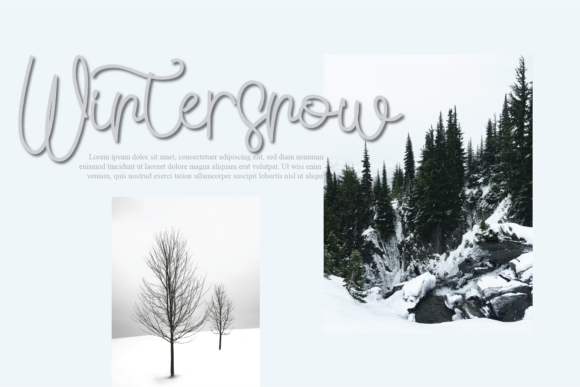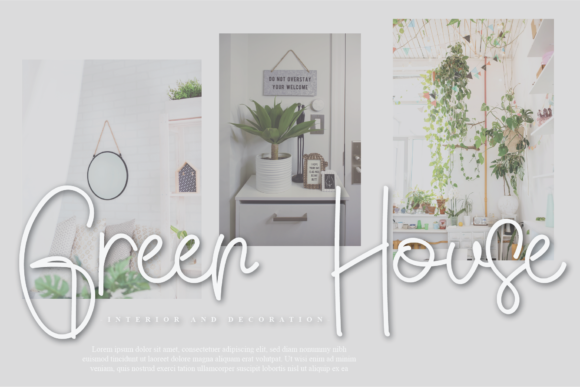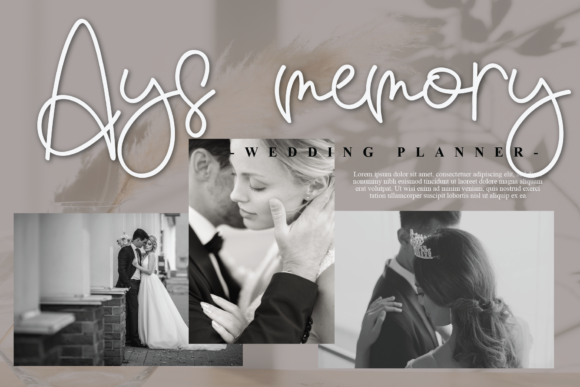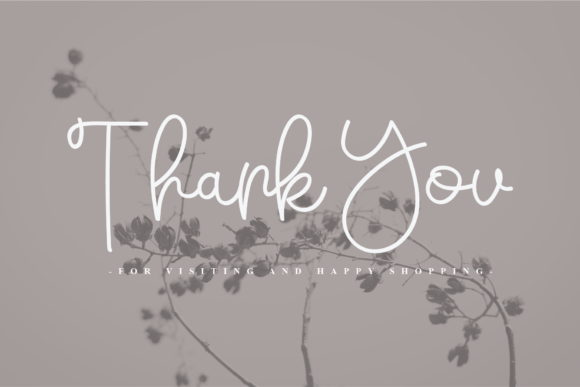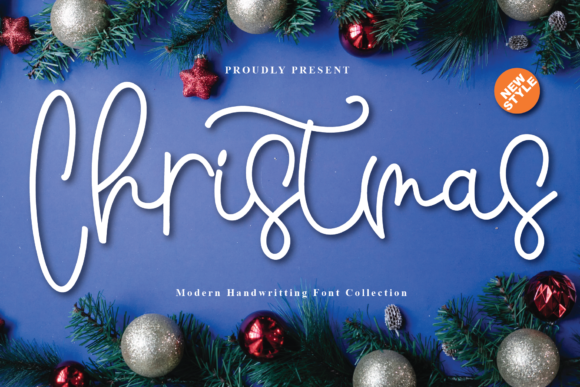
Christmas Font: A Lovely and Delicate Script Font for Elegant Designs
Are you looking for a beautiful and refreshing font to add a touch of elegance to your designs this holiday season? Look no further than Christmas Font, a lovely and delicate script font that exudes sophistication and class. In this article, we’ll explore the features and benefits of Christmas Font, and how it can elevate your designs to the next level.
What is Christmas Font?
Christmas Font is a carefully crafted script font, designed specifically for those who need a beautiful and refreshing look to their designs. With its delicate and elegant strokes, this font is perfect for creating stunning holiday-themed designs, from Christmas cards and invitations to festive posters and social media graphics.
Key Features of Christmas Font
So, what makes Christmas Font so special? Here are some of its key features:
• Elegant and Delicate Strokes: Christmas Font features beautiful, flowing strokes that give it a sophisticated and refined look.
• Script Style: This font is a script font, which means it’s perfect for creating flowing, connected text that’s perfect for headlines, titles, and short paragraphs.
• Holiday-themed: Christmas Font is specifically designed for the holiday season, making it perfect for creating festive and fun designs.
• Easy to Read: Despite its delicate nature, Christmas Font is surprisingly easy to read, making it perfect for use in a variety of design applications.
Benefits of Using Christmas Font
So, why should you choose Christmas Font for your designs? Here are just a few benefits:
• Adds a Touch of Elegance: Christmas Font adds a touch of sophistication and elegance to any design, making it perfect for high-end brands and luxury products.
• Perfect for Holiday Designs: As its name suggests, Christmas Font is specifically designed for the holiday season, making it perfect for creating festive and fun designs.
• Versatile: Christmas Font can be used in a variety of design applications, from print to digital, and from headlines to body text.
How to Use Christmas Font in Your Designs
So, how can you use Christmas Font in your designs? Here are a few ideas:
• Christmas Cards and Invitations: Use Christmas Font to create beautiful and elegant Christmas cards and invitations that will impress your friends and family.
• Holiday Posters and Flyers: Add a touch of elegance to your holiday posters and flyers with Christmas Font.
• Social Media Graphics: Use Christmas Font to create stunning social media graphics that will help your brand stand out this holiday season.
• Packaging and Branding: Add a touch of sophistication to your packaging and branding with Christmas Font.
Tips and Tricks for Getting the Most out of Christmas Font
Here are a few tips and tricks for getting the most out of Christmas Font:
• Use it Sparingly: Because Christmas Font is so elegant and delicate, it’s best to use it sparingly to avoid overwhelming your design.
• Pair it with Other Fonts: Christmas Font pairs well with a variety of other fonts, so don’t be afraid to experiment with different combinations.
• Experiment with Colors: Christmas Font looks great in a variety of colors, so don’t be afraid to experiment with different color schemes.
Font Name Christmas Font
Author hl_studio